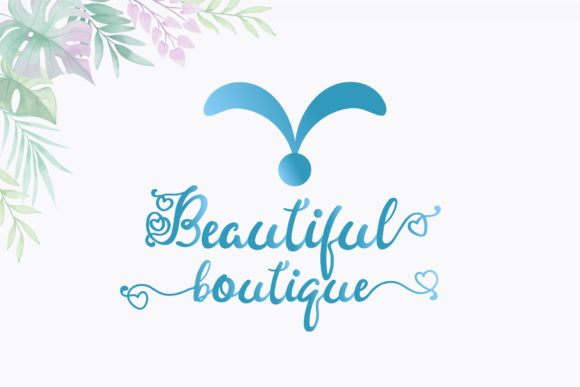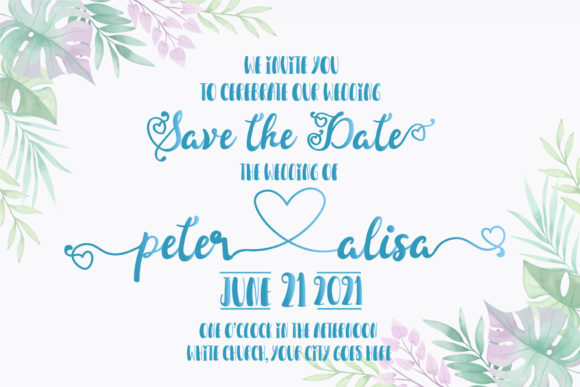
Tree Stories Font
db-ku.com - Script & Handwritten -- Tree Stories is a romantic, whimsical and chic script font. It is PUA encoded which means you can access all of the glyphs and swashes with ease! Fall in love with its incredibly versatile style and use it to create spectacular designs!